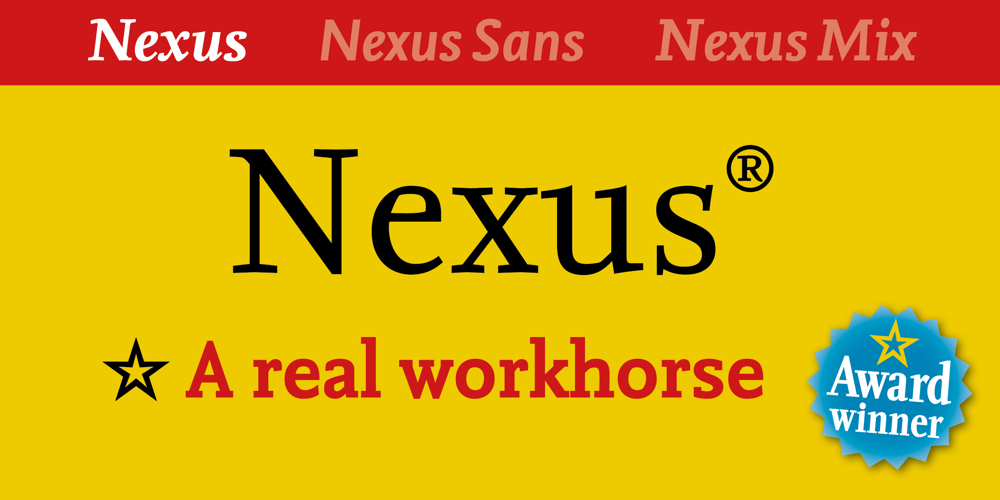
Nexus Serif Pro Font Family was designed by Martin Majoor and published by Martin Majoor. Nexus Serif Pro contains 4 styles and family package options. Nexus (2004) consists of 3 matching variants – a serif, a sans and a slab – which makes it a highly versatile typeface. There is also a monospaced version called Nexus Typewriter.The Nexus family is a workhorse typeface with extensive OpenType features.Free bonus: there are more than 100 elegant Swash italics and dozens of arrows and other icons. Nexus was awarded the First Prize at the Creative Review Type Design Awards 2006.